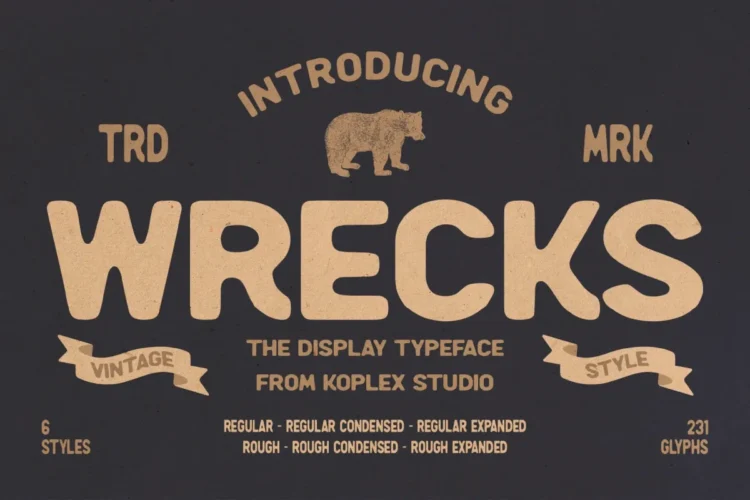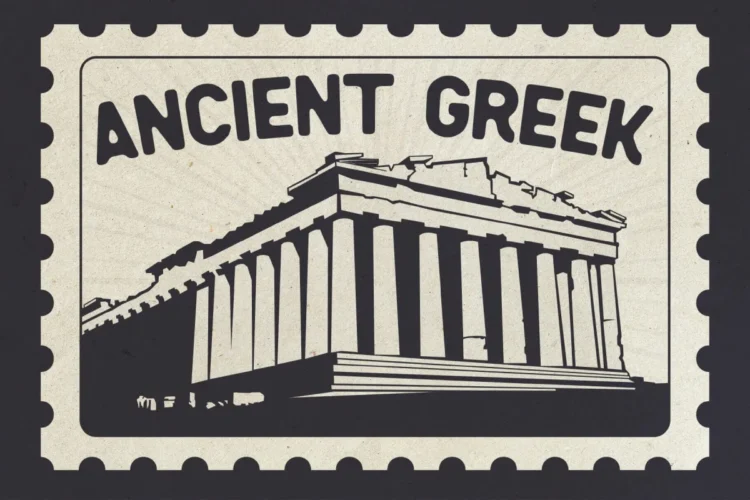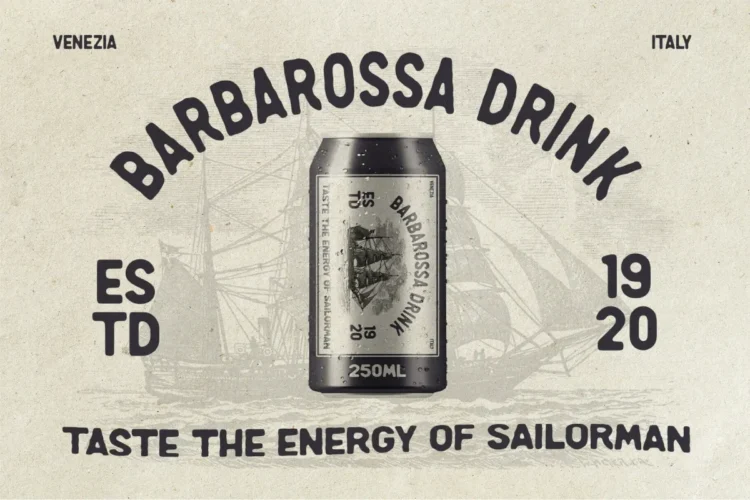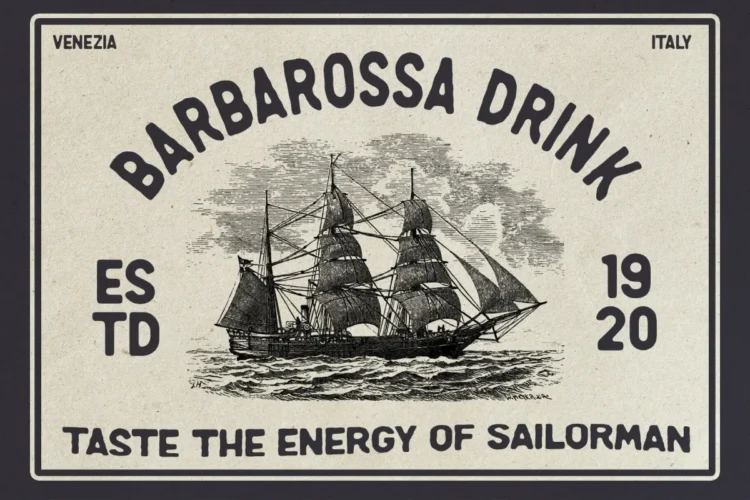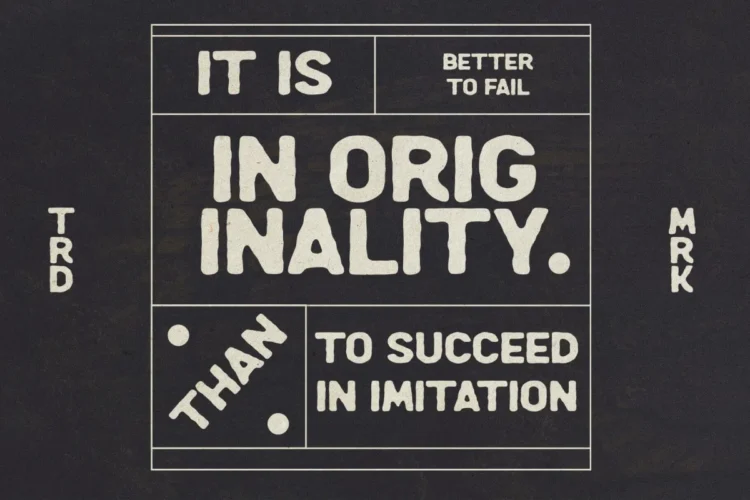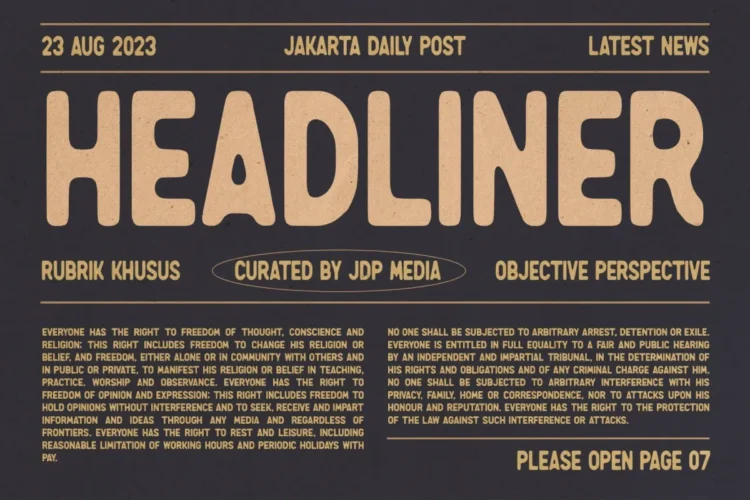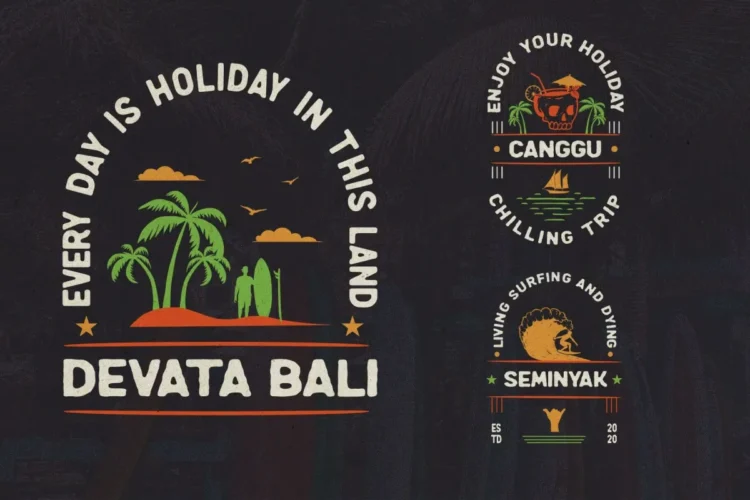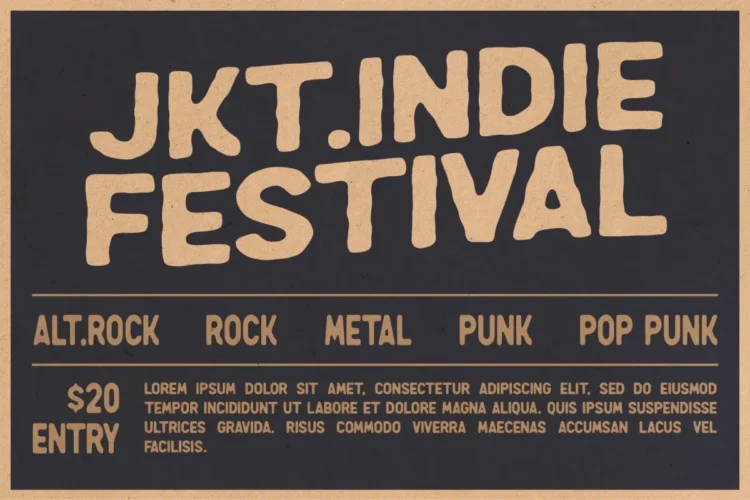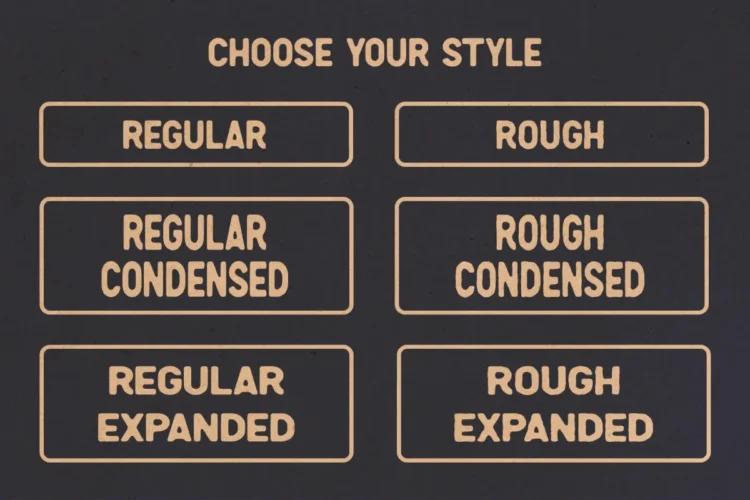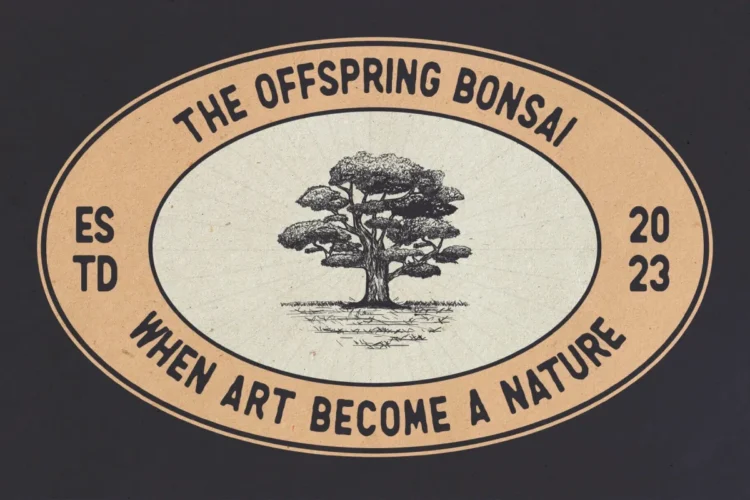
Wrecks Font – Vintage Retro Display Typeface for Logo, Poster & Packaging Design
Wrecks Font is a vintage font that captures the nostalgic soul of retro design with a modern twist. Created by Koplex Studio, this retro display typeface blends handcrafted texture and bold serif character, making it perfect for designers seeking a texture font that’s both rugged and refined.
This serif font features 6 versatile styles — Regular, Rough, Condensed, and Expanded — offering full flexibility for your creative needs. Whether you’re designing logos, labels, or brand packaging, Wrecks Font delivers timeless appeal and strong visual impact.
Perfect for both digital and print, it brings vintage craftsmanship to modern design projects — ideal for branding, advertising, adventure posters, and headline typography. The rough version adds authentic grit and tactile texture, while the regular version keeps things clean and contemporary.
Wrecks Font is versatile and works beautifully for :
- Branding & identity projects
- Vintage labels & packaging
- Adventure-themed posters & apparel
- Editorial headlines & titles
- Café, brewery, and outdoor brand logos
- Retro event promotions & signage
Wrecks Font Features:
- 🧩 6 Styles: Regular, Rough, Condensed, Expanded versions
- ✍️ 231 Glyphs with multilingual support
- 🎨 Perfect for Vintage, Retro, and Modern aesthetics
- 💼 Excellent as a Branding Font, Logo Font, Label Font, or Packaging Font
- 📰 Great for Headlines, Posters, Adventure themes, and Typography Artwork
- 📦Works beautifully in T-shirt designs, Signage, Magazine titles, and Product labels